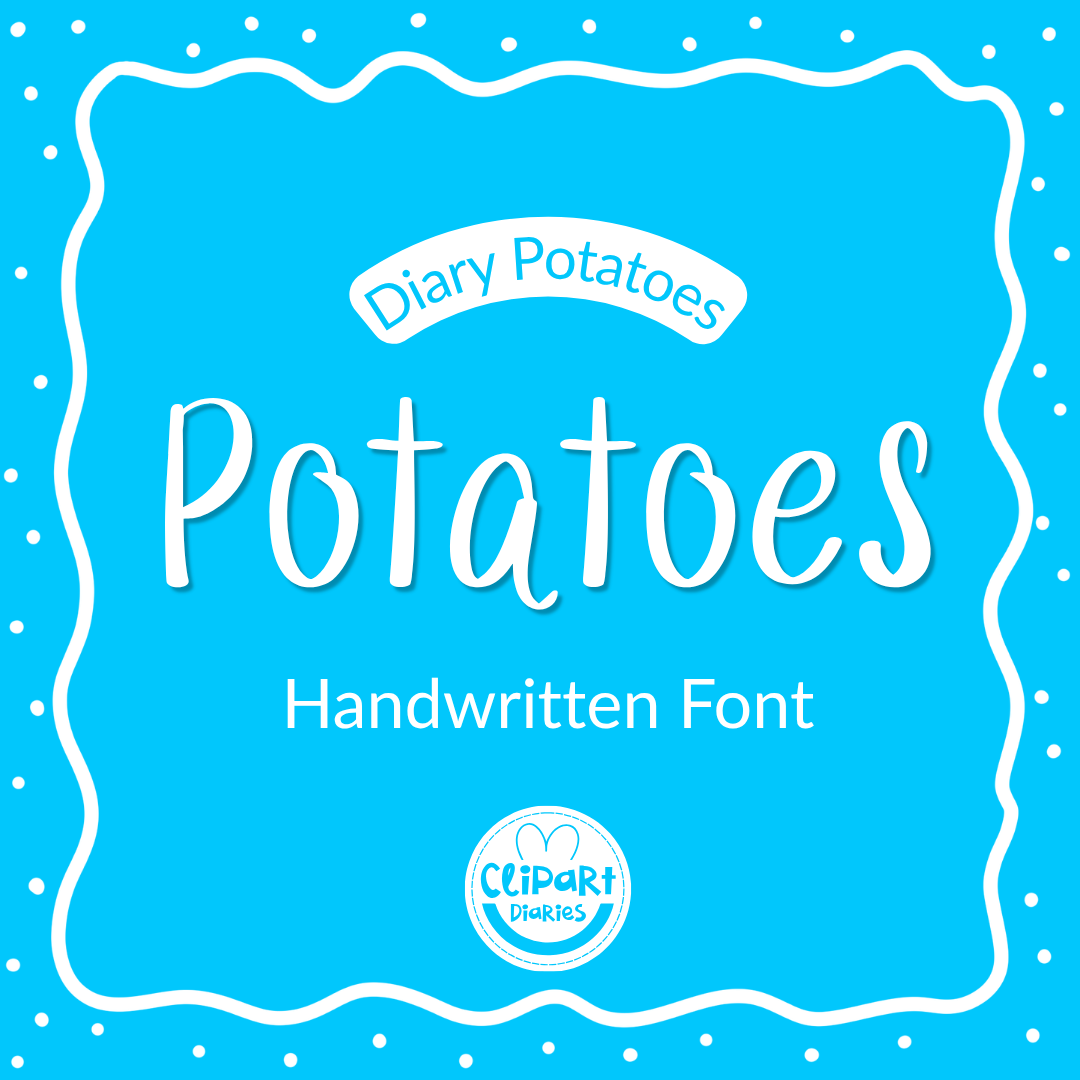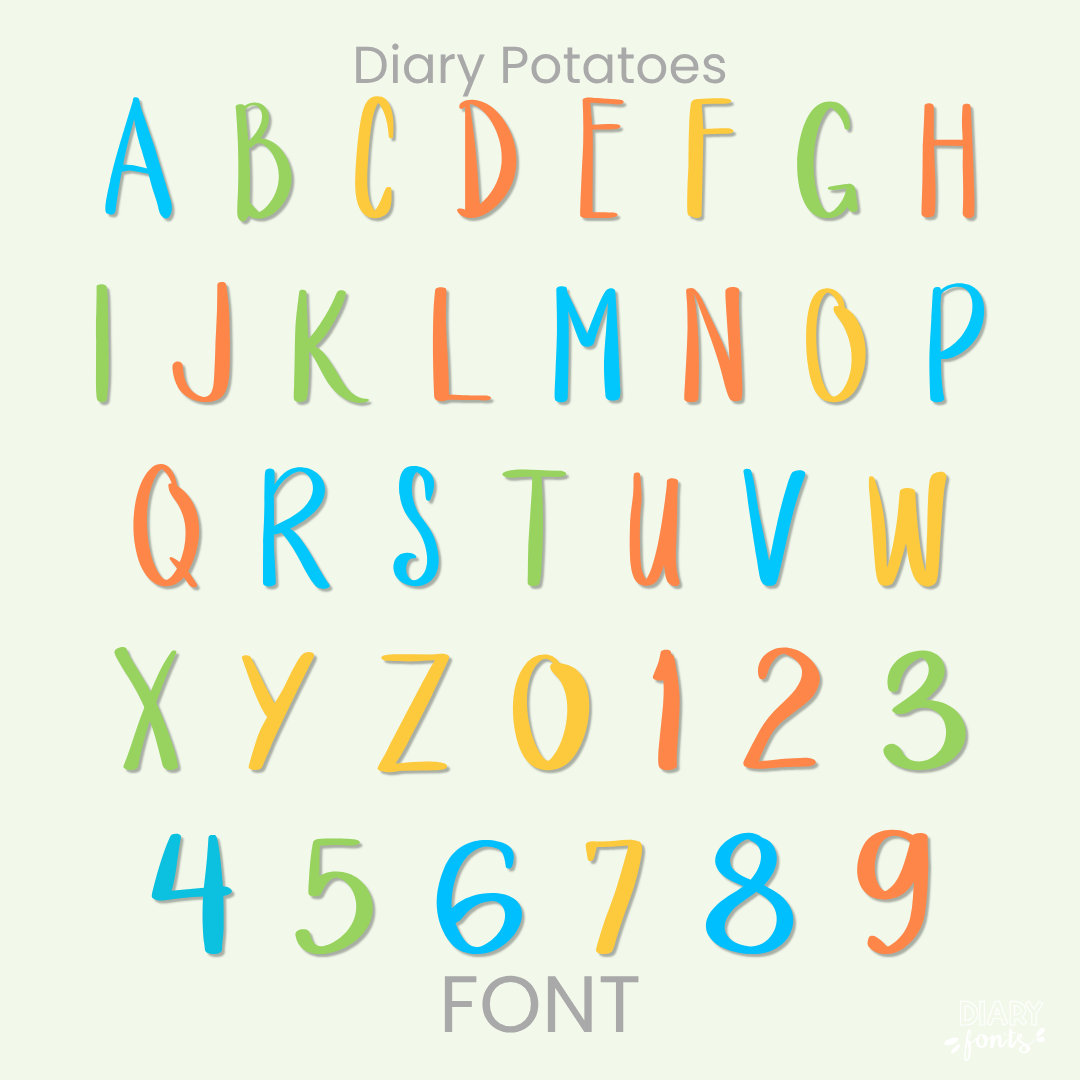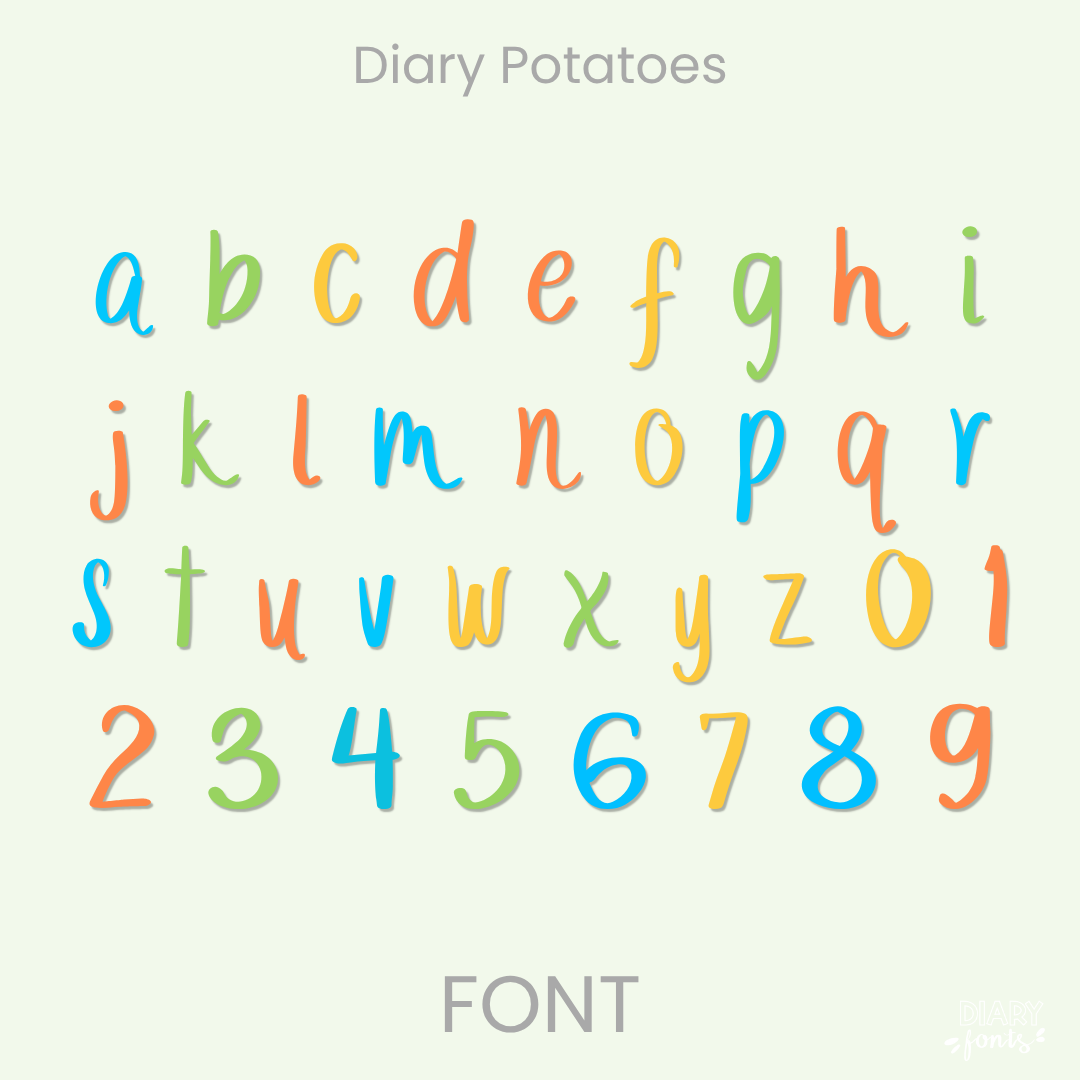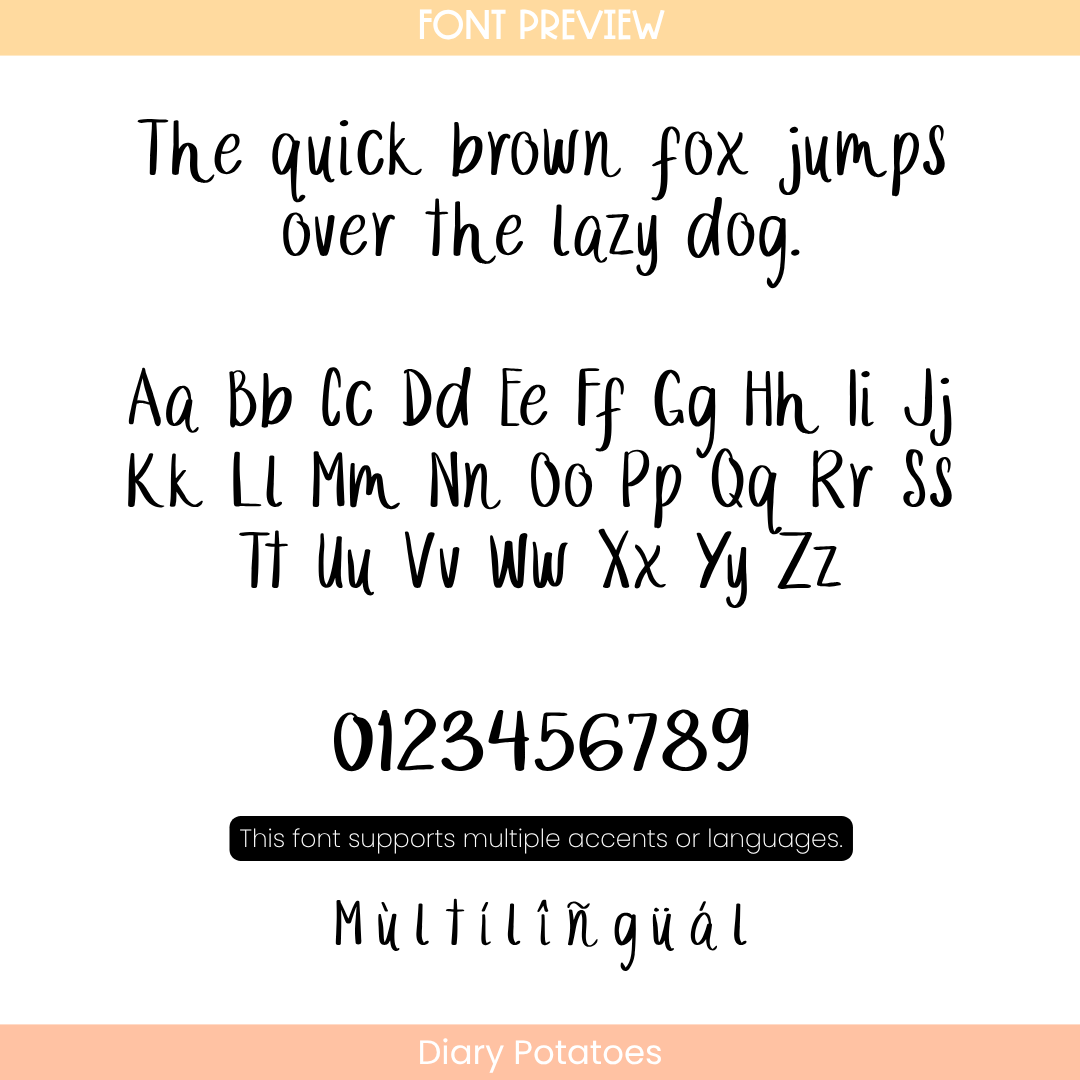
Diary Potatoes Font – Handwritten Font
The Diary Potatoes is a casual, hand-drawn font designed for everyday classroom resources, worksheets, and digital presentations.
Diary Potatoes offers a relaxed, handwritten print style that gives educational materials an authentic, hand-made look. It features slightly bouncy characters with natural irregularities and varying letter heights, mimicking realistic penmanship while keeping the text clear and easy for young students to read.
This font works well for primary worksheets, morning meeting slide decks, classroom labels, and simple project headers. The character set includes uppercase and lowercase letters, numbers, and accents for multilingual support. It can be used on desktop applications like MS Office and Adobe software, as well as iPad apps such as GoodNotes and Procreate. It provides a clean yet approachable aesthetic for personal classroom projects or commercial teacher resources.